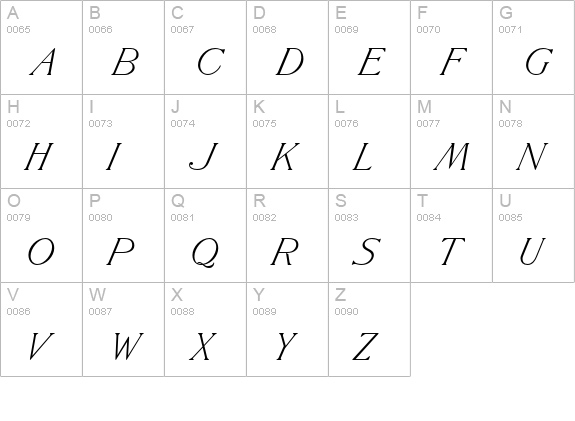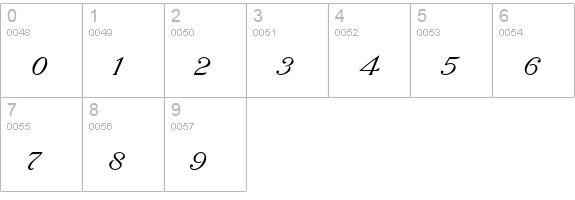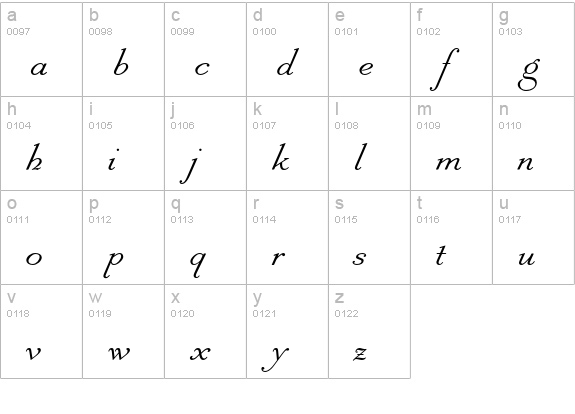
Slanted Antique Roman Std Font Details
Slanted Antique Roman Std is a breathtakingly elegant font that effortlessly combines the timeless beauty of Antique Roman with a modern twist. Its slanted design adds a touch of sophistication and dynamism, making it perfect for a wide range of applications. With its beautifully crafted serifs, graceful curves, and balanced proportions, Slanted Antique Roman Std exudes a sense of classical refinement. Whether used for headlines, body text, or logos, this font captures attention and adds an air of sophistication to any design project. What makes Slanted Antique Roman Std even more remarkable is that it is freely available to download at FontsMarket.com. This means that designers and typographers can enjoy the sheer beauty and versatility of this font without any restrictions. It opens up a world of possibilities, allowing creativity to flow freely and effortlessly. Slanted Antique Roman Std is a font that brings together the best of both worlds – the timeless elegance of Antique Roman and the contemporary appeal of slanted typography. Its versatility, combined with its easy accessibility, makes it a must-have for designers, typographers, and anyone looking to add a touch of class to their projects. Download Slanted Antique Roman Std for free today at FontsMarket.com and unleash your creativity with a font that embodies the essence of classic beauty and modern design.